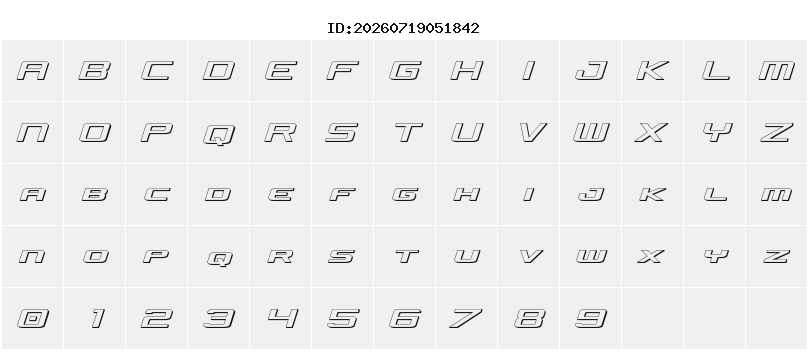
Concielian Jet 3D Semi-Italic.ttf is a modern, elegant sans-serif font designed for ultimate readability and visual harmony. Perfect for branding, headlines, web design, and print materials.